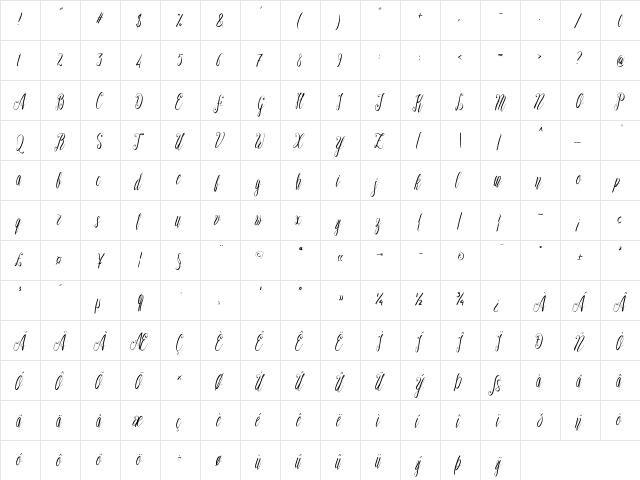
Sweeter than Candy Regular
Design Context for Sweeter than Candy Typeface
Sweeter than Candy is a composed and adaptable typeface that performs quietly and consistently across a wide range of design contexts.